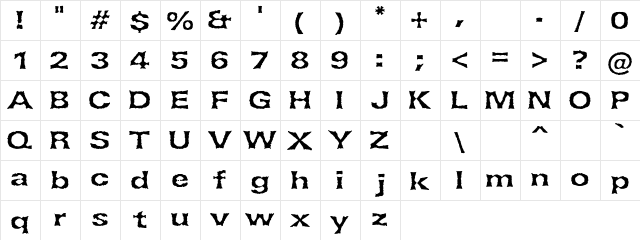
Do or Die Regular
Design Context for Do or Die Typeface
Do or Die is a composed and adaptable typeface that performs quietly and consistently across a wide range of design contexts.